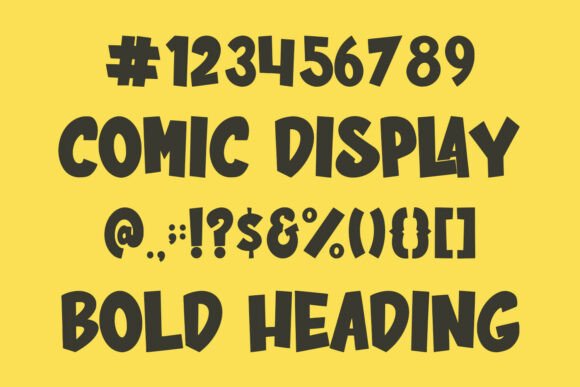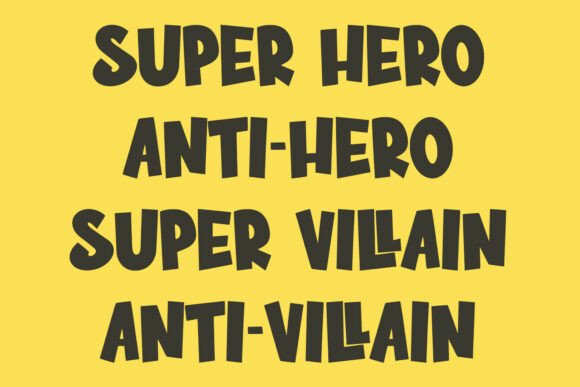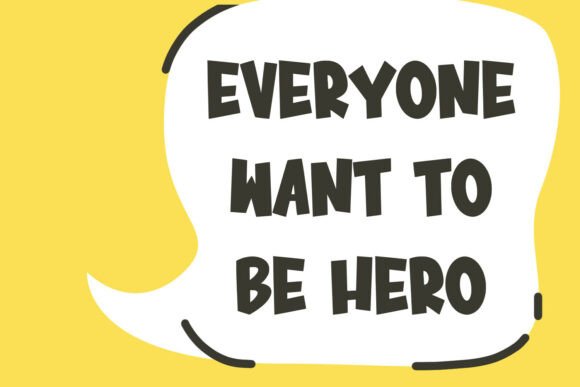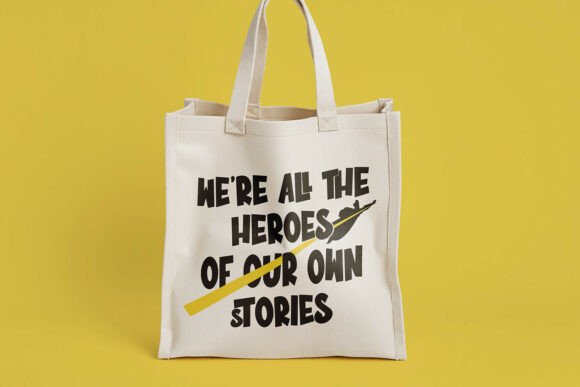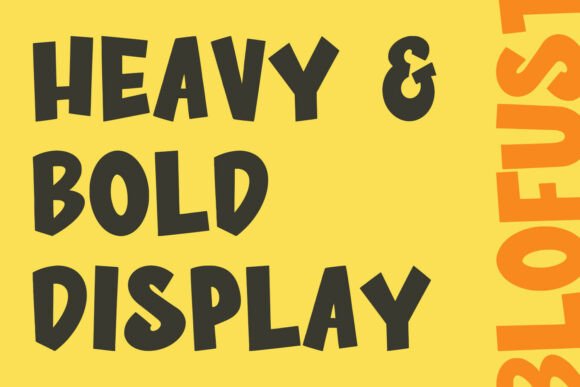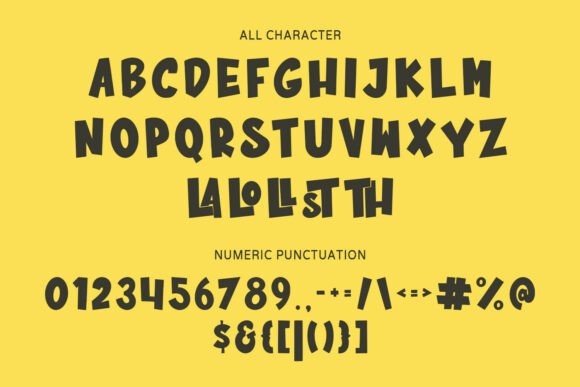
The Perfect Font for a Punchy Design
Remember that moment when you’re brainstorming a new project and you need a font that’s going to grab attention? You know, that instant where you want to shout ‘I’m here!’ and make your design pop? For many designers, that moment calls for a bold and playful font that’s going to bring a smile to people’s faces. That’s where Blofust Font comes in – a comic display font that’s bursting with fun and personality.
Whether you’re working on a children’s book, a comic-style poster, or a party invitation, Blofust Font is the perfect choice. Its thick, exaggerated letterforms and quirky angles are sure to command attention and bring a sense of whimsy to any design. As a designer, having this font in your toolkit is invaluable – it’s a game-changer for anyone looking to add a bit of humor and personality to their work.
Blofust Font Key Features
- Font Family: Blofust Font is a sans-serif font family.
- Unique Characteristics: Blofust Font features a unique blend of modern and minimalist design elements, making it suitable for a wide range of applications.
Blofust Font Review
Overall, I think Blofust Font is a great addition to any designer’s toolkit. ✨ Its unique blend of modern and vintage styles makes it perfect for creating eye-catching headlines and titles. I love how the font’s irregularities give it a hand-crafted feel that’s both quirky and charming.
- ✨ The font’s high x-height makes it easy to read at smaller sizes, making it ideal for body text or captions.
- ✨ The font’s versatility means it can be used in a wide range of applications, from fashion and beauty to technology and gaming.
- ✨ The font’s OpenType features allow for a range of stylistic alternatives, giving designers a lot of creative freedom.
However, there are a few limitations to consider. ⚠️ The font’s irregularities can sometimes make it difficult to use in long blocks of text, where consistency is key. Additionally, the font’s bold weights can feel a bit chunky, which may not be suitable for all designs.
Overall, I think Blofust Font is a great choice for designers looking to add some personality to their work. While it may not be perfect for every project, its unique style and versatility make it a valuable addition to any designer’s toolkit.
Tips for Getting the Most Out of Blofust Font
For optimal results, use the Blofust Font in conjunction with bold or italic styles to create visual emphasis. Experiment with different font sizes and colors to add depth and interest to your text.
The Blofust Font is ideal for use in headings, titles, and other prominent text elements. It’s also suitable for use in branding and marketing materials, such as logos, business cards, and brochures.